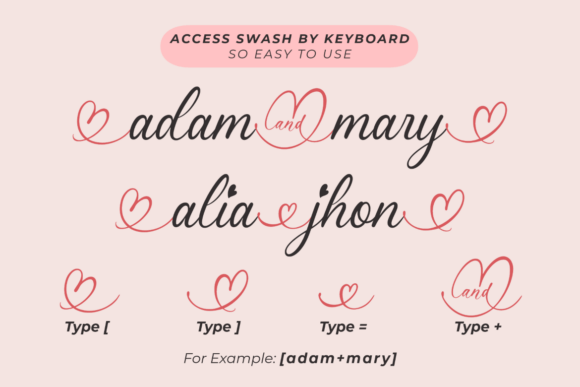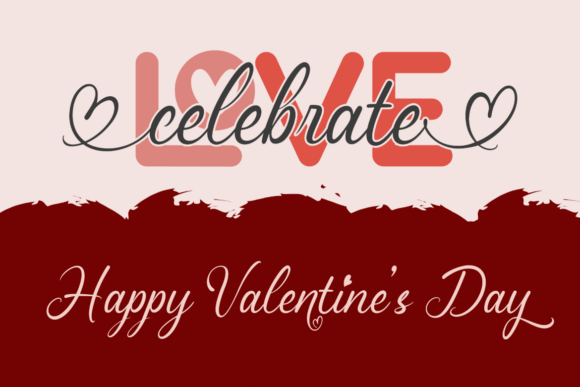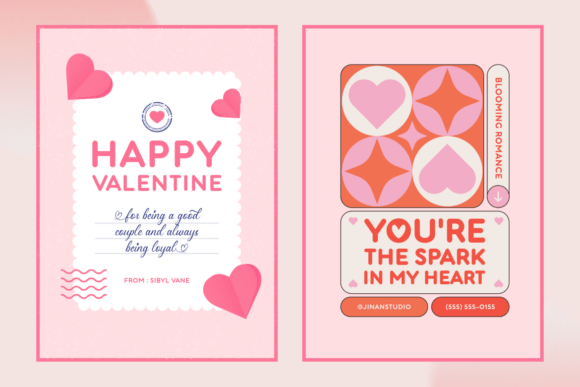
Blooming Romance Duo Font
Infuse your creative designs with an essence of love and sophistication through Blooming Romance; a captivating Valentine’s-centered font duo. This dynamic duo introduces a bold, whimsical sans-serif typeface, adorned with enchanting heart details guaranteed to make your headlines stand out. Alongside it, a romantically delicate script font with fluid strokes, elegantly embellished with hearts, adds a touch of grace to your text. The harmonious fusion of playfulness and elegance in Blooming Romance makes it an excellent choice for Valentine’s Day ventures, wedding stationery, love-focused brand imaging, and beyond. Allow Blooming Romance to instill a sense of warmth and tenderness into your design masterpieces!